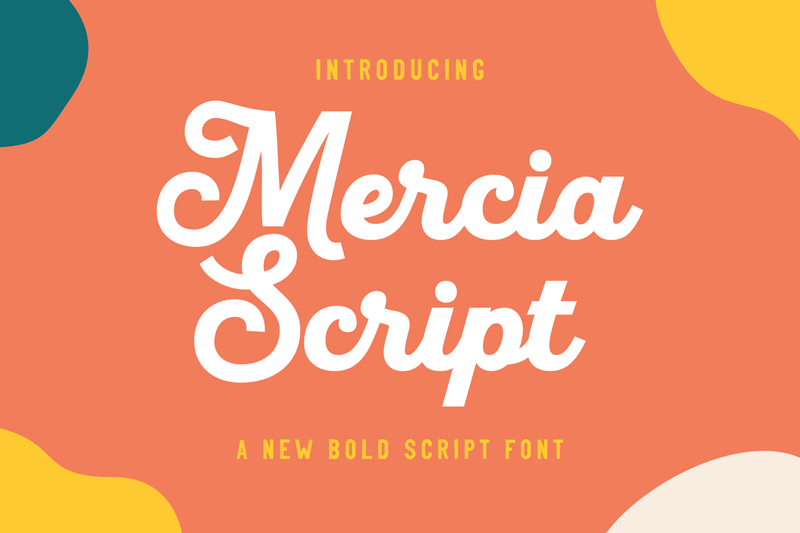
Font name: | Mercia Script |
Author: | Letterflow Studio |
Note by Letterflow Studio | |
The Mercia Script font offers a wide range of ligatures to ensure smooth readability and beautiful letter combinations. The decorative swashes in some of the Capitals presented as stylistic sets give a unique touch in any design. Mercia has its own style and personality but without lacking legibility |